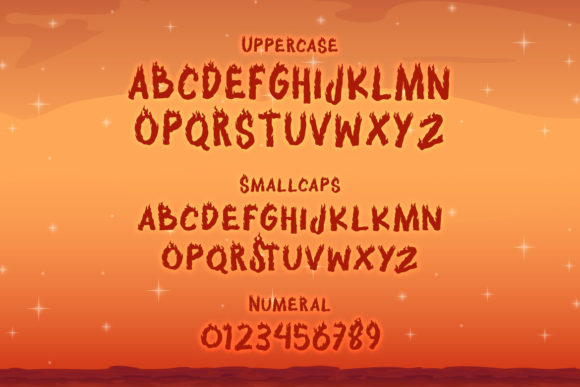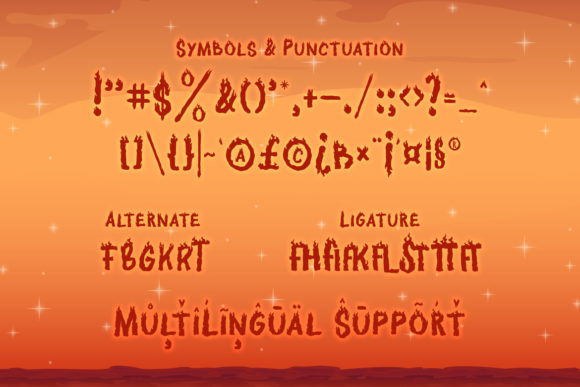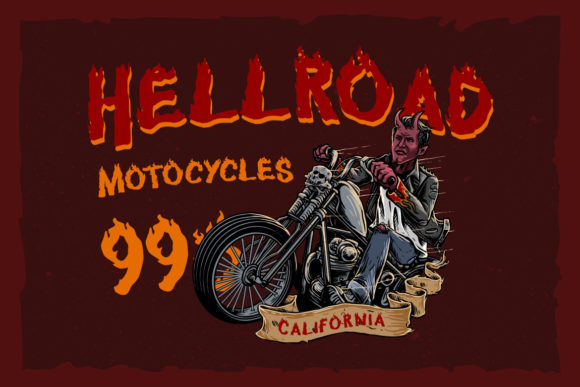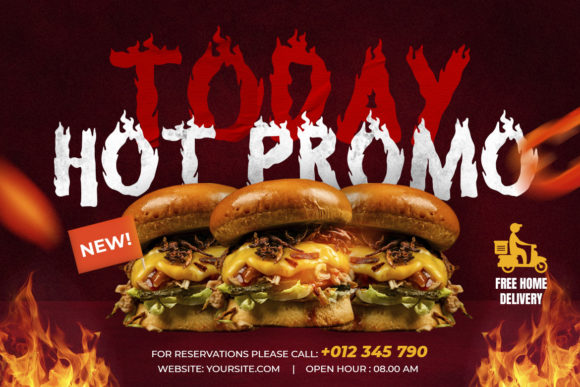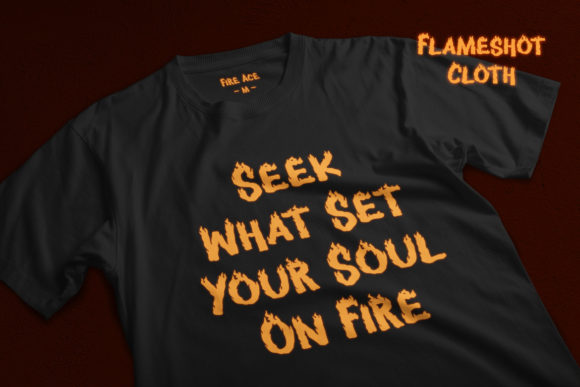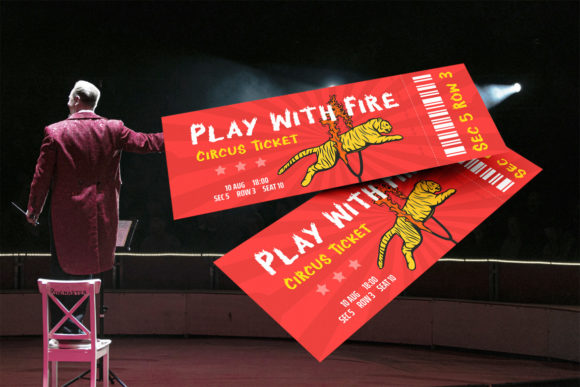
Unleash the Heat: Introducing Fire Ace Font
Are you looking for a font that can add a spark to your designs? Do you want to convey a sense of danger, speed, and intensity? Look no further than Fire Ace Font, a fiery display font that’s sure to ignite your creative projects. In this article, we’ll explore the features and benefits of Fire Ace, and show you how to use it to take your designs to the next level.
The Perfect Font for Edgy Designs
Fire Ace is a creative typeface that’s designed to give your designs a scary and dangerous feel. With its bold, fiery style, it’s perfect for brands and projects that want to make a statement. Whether you’re working on a logo, a poster, or a social media campaign, Fire Ace is the perfect choice for adding a touch of heat and energy.
Ideal for Spicy Brands and Speedy Races
So, who is Fire Ace Font perfect for? Here are a few ideas to get you started:
• Spice brands: Add a kick to your packaging and advertising with Fire Ace’s bold, spicy style.
• Speedy races: Give your racing team or event a font that’s fast, fierce, and attention-grabbing.
• Spicy food ads: Make your food ads sizzle with Fire Ace’s hot, fiery style.
• Action movies and games: Use Fire Ace to create explosive, attention-grabbing titles and logos.
Key Features of Fire Ace Font
So, what makes Fire Ace Font so special? Here are a few key features that set it apart:
• Fiery style: Fire Ace has a bold, fiery style that’s perfect for adding a touch of heat to your designs.
• Display font: Fire Ace is a display font, designed to make a statement and grab attention.
• High-quality design: Fire Ace is designed to high standards, with clean lines and precise curves.
How to Use Fire Ace Font in Your Designs
Using Fire Ace Font in your designs is easy. Here are a few tips to get you started:
• Pair it with a simple font: Fire Ace is a bold font, so it’s best paired with a simpler font for body text.
• Experiment with colors: Fire Ace looks great in bold, bright colors, but it can also be used in metallic or gradient effects.
• Use it for headlines and titles: Fire Ace is perfect for headlines and titles, where you want to grab attention and make a statement.
Fire Ace Font is a fiery display font that’s perfect for designers who want to add a touch of heat and energy to their projects. With its bold, spicy style, it’s ideal for spice brands, speedy races, spicy food ads, and more. Whether you’re a seasoned designer or just starting out, Fire Ace is a great choice for any project that needs a little excitement and danger. So why not give it a try and see the impact it can have on your designs?